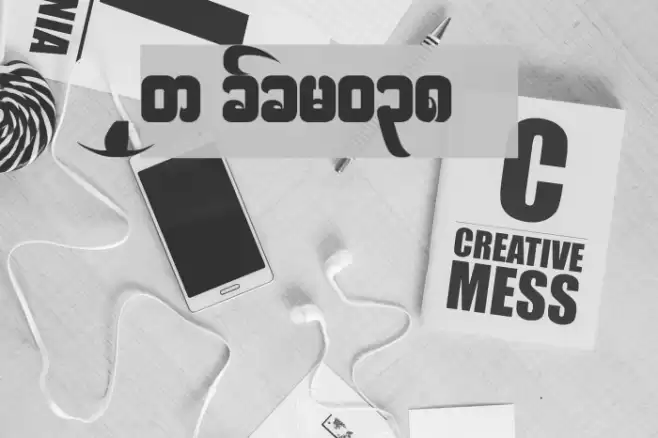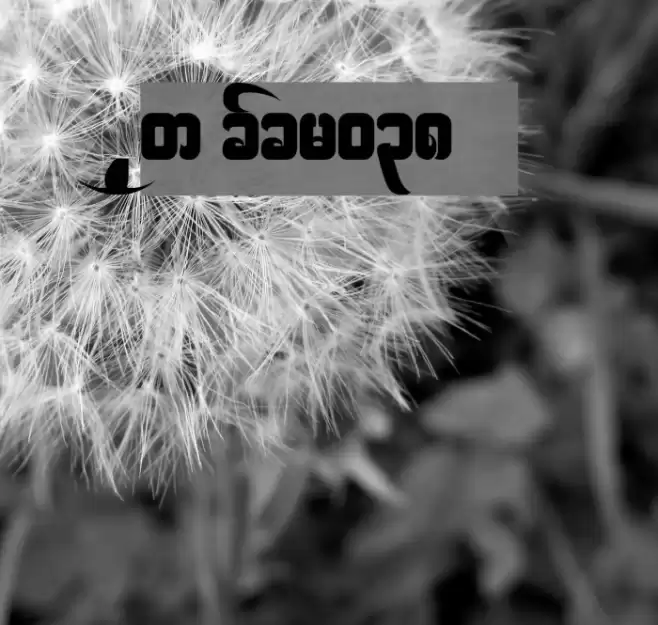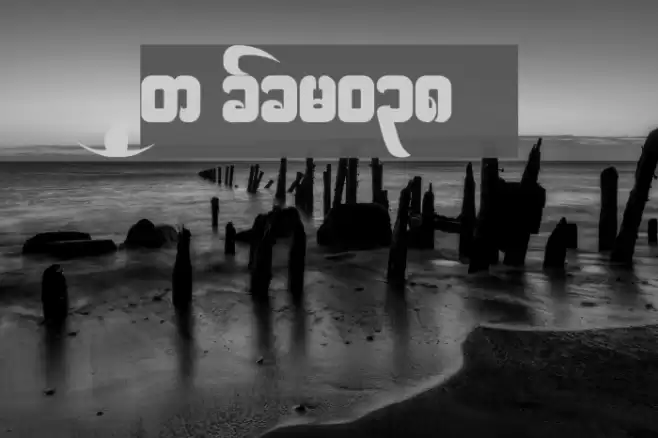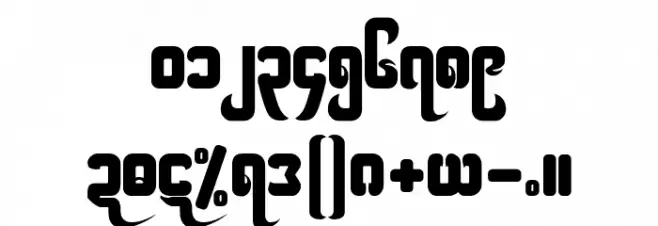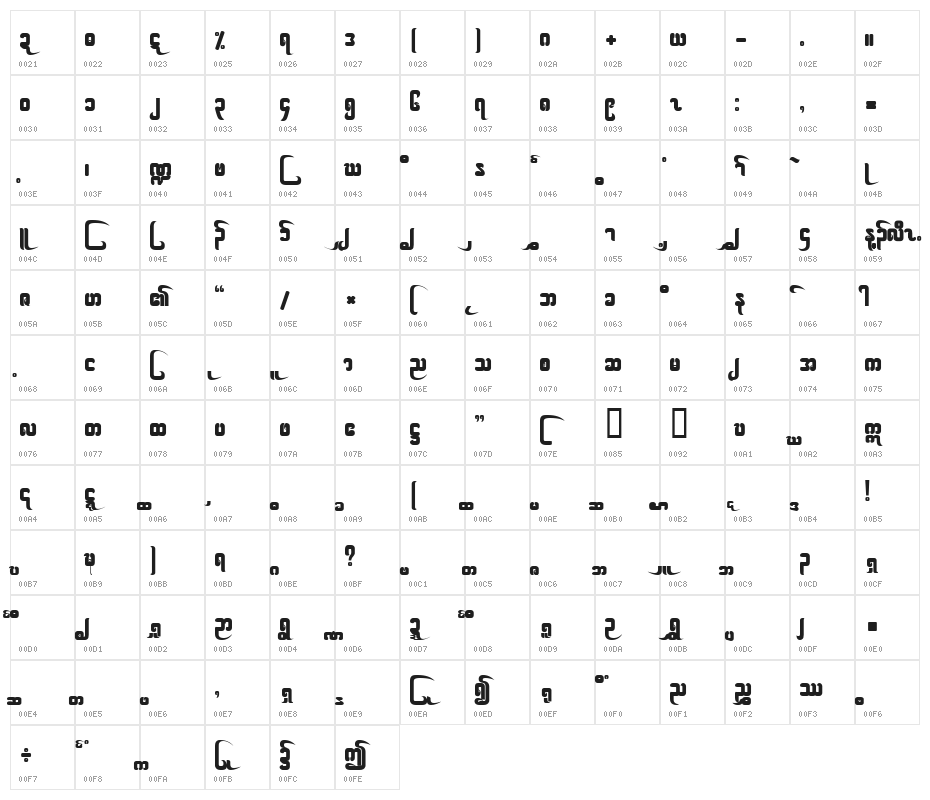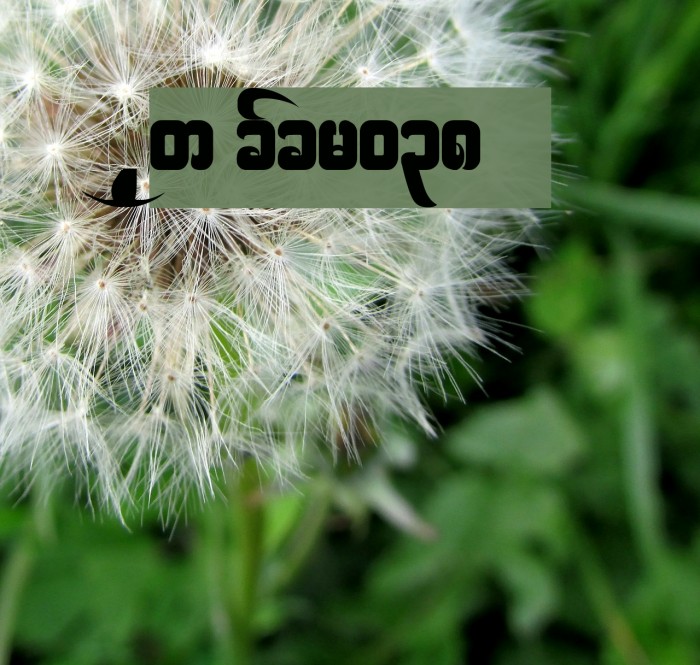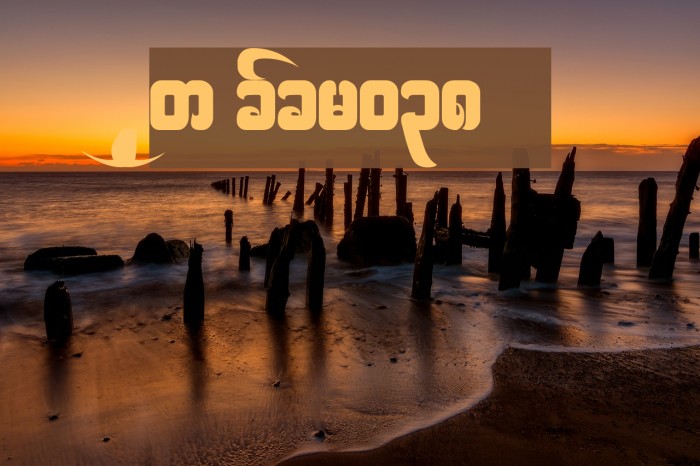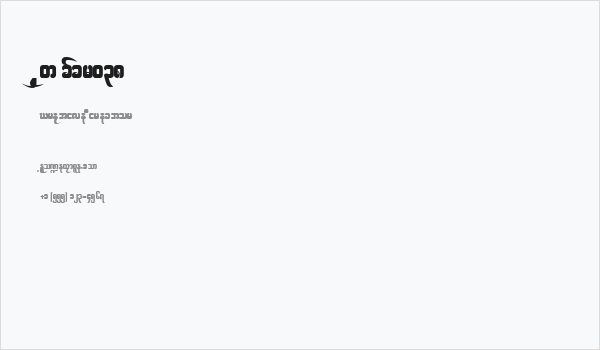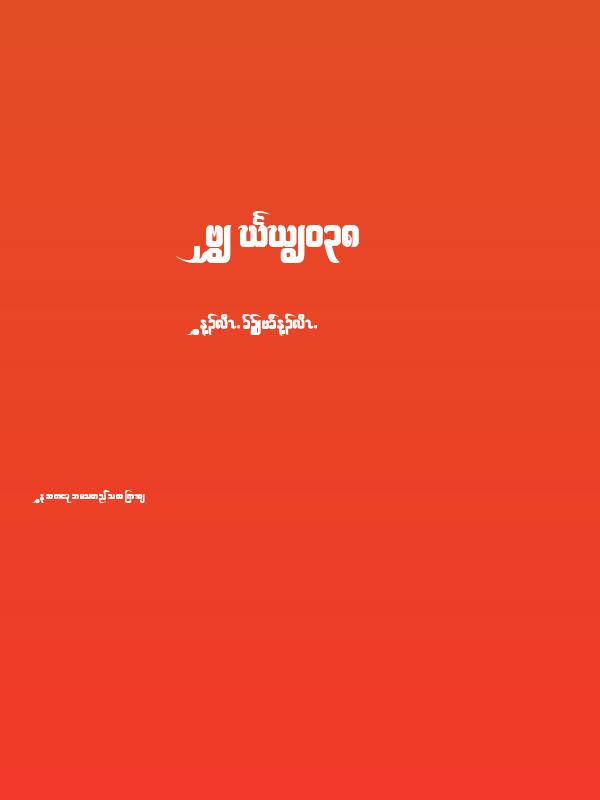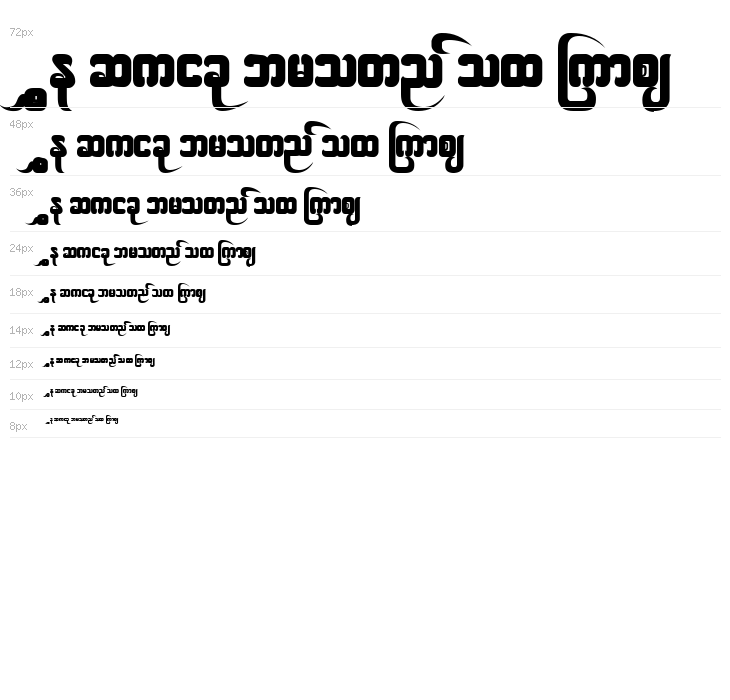
Saw cfcr038 Font
Saw cfcr038 Description
A highly stylized, decorative typeface with bold, thick strokes and unique, flowing curves. The letterforms feature exaggerated terminals and ornamental flourishes, giving the font a dramatic and artistic appearance. The spacing is tight, and the overall structure is compact, with a strong visual impact.
A bold, decorative display font with ornate curves and thick strokes from Uncategorized fonts.
- Proposed Projects: Posters, branding, album covers, event invitations, artistic headlines.
- Character Spacing: Tight
- Overall Style: Decorative, Artistic, Modern